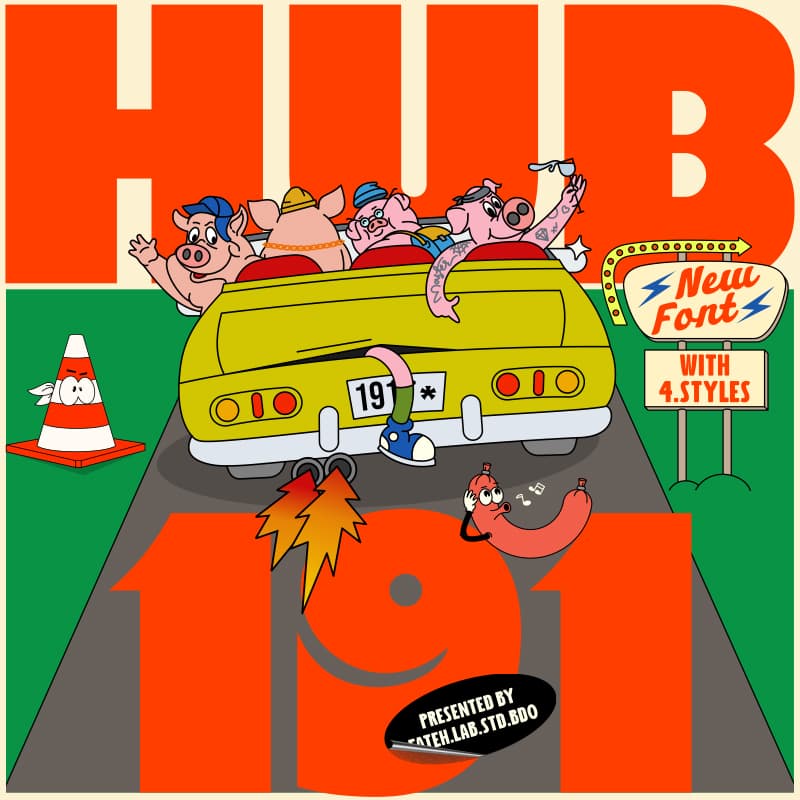
<p><strong>Hub 191</strong> stands out with its cheerful demeanor and striking style, distinguishing it from typical fonts. Uniquely designed to make a statement, its weight and presence shine in posters, social media, headlines, and magazine titles. This font excels in large print formats and is well-suited for clothing lines and any medium where visibility is paramount.</p><p></p><p>Informed by contemporary design trends, Hub 191 meets the creative demands of the modern era, making it the perfect choice for innovators in graphic design.</p><p></p><p><br></p>